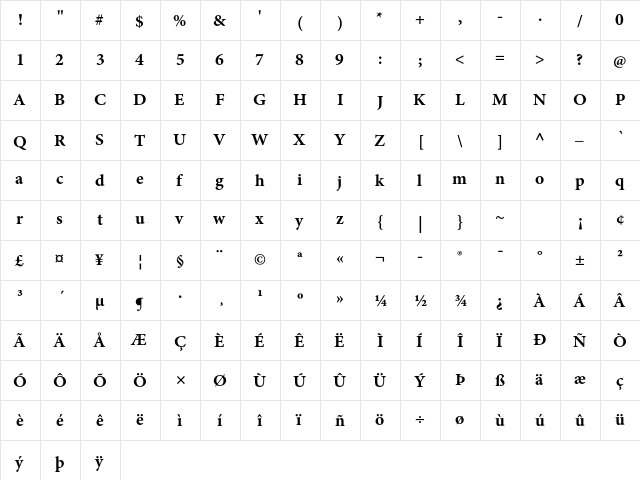
Adobe Arabic Bold
| Foundry | Tiro Typeworks for Adobe Systems Incorporated. |
| Designer | Tim Holloway (Arabic) and Robert Slimbach (Latin) |
Design Context for Adobe Arabic Typeface
Adobe Arabic takes a measured approach to typography — its balanced proportions and neutral character make it a reliable workhorse for both digital and print work. Its bold stroke weight gives it real presence on the page.